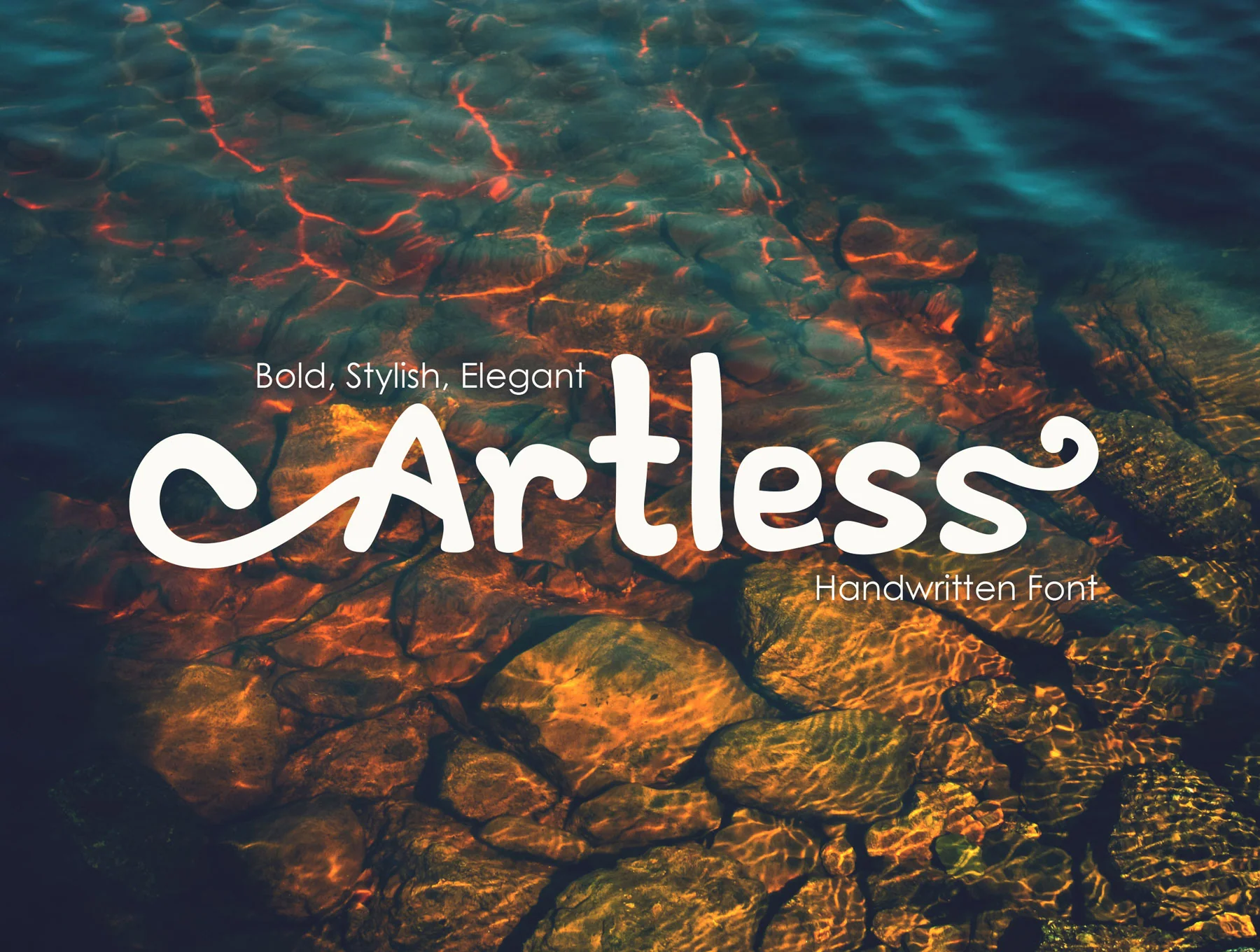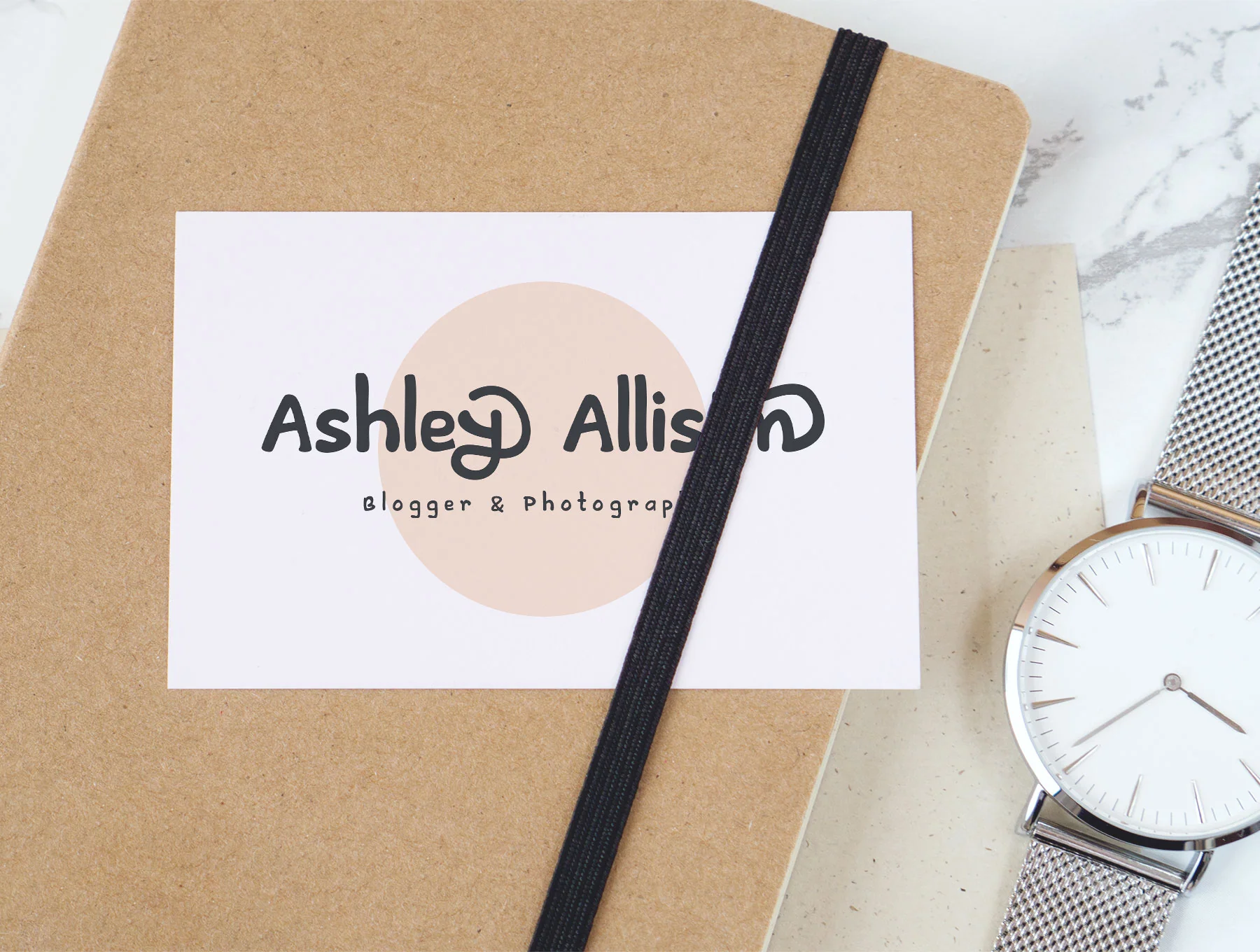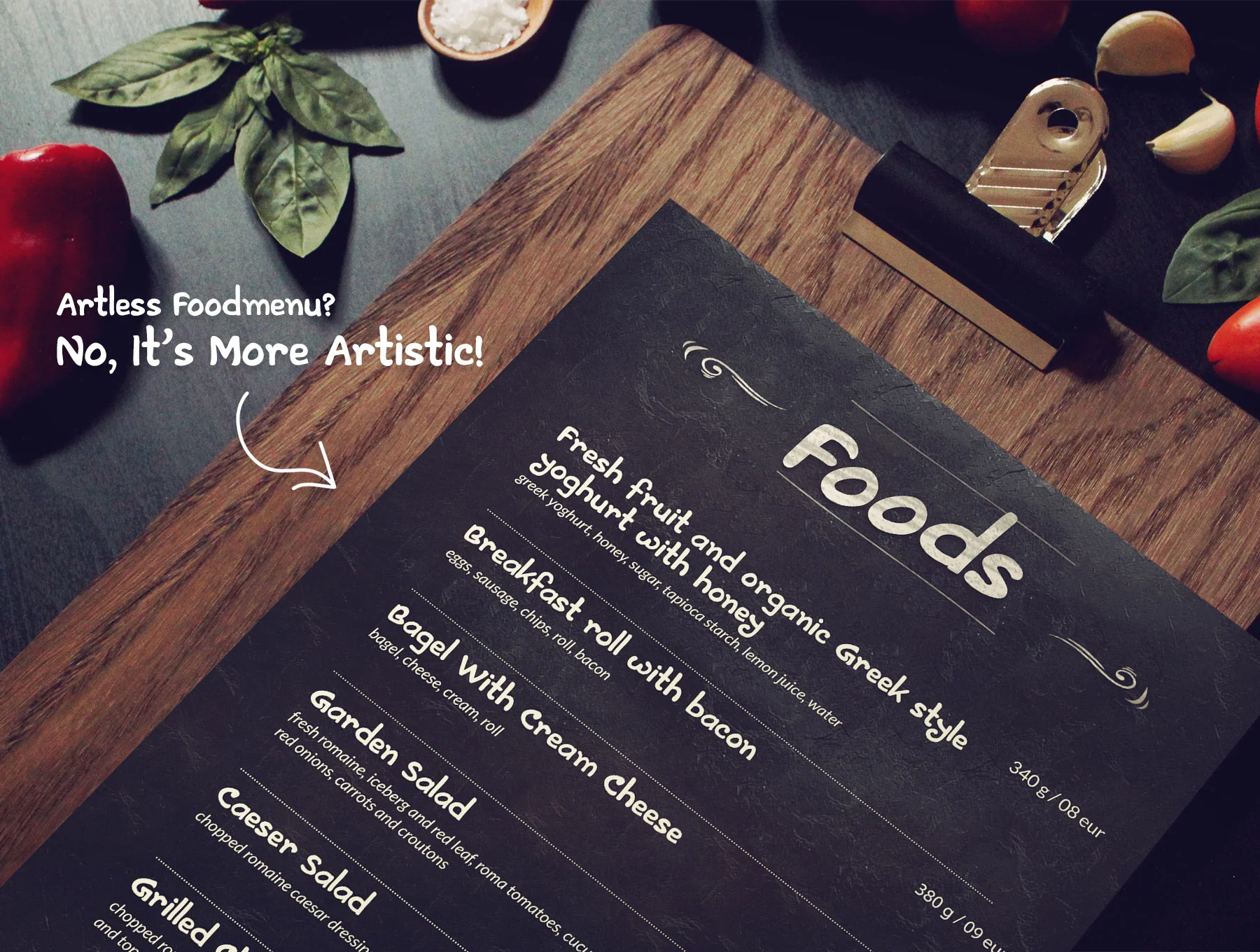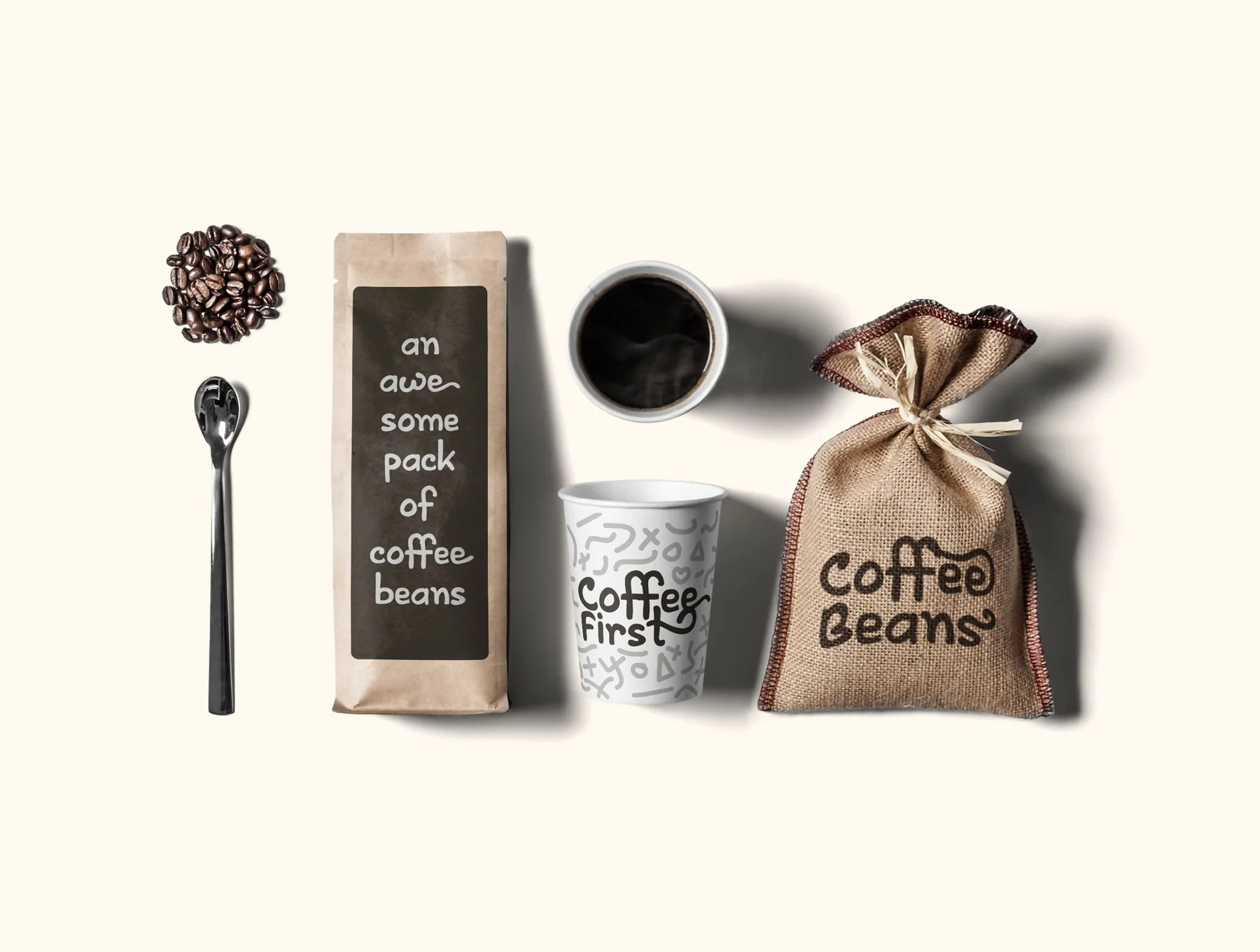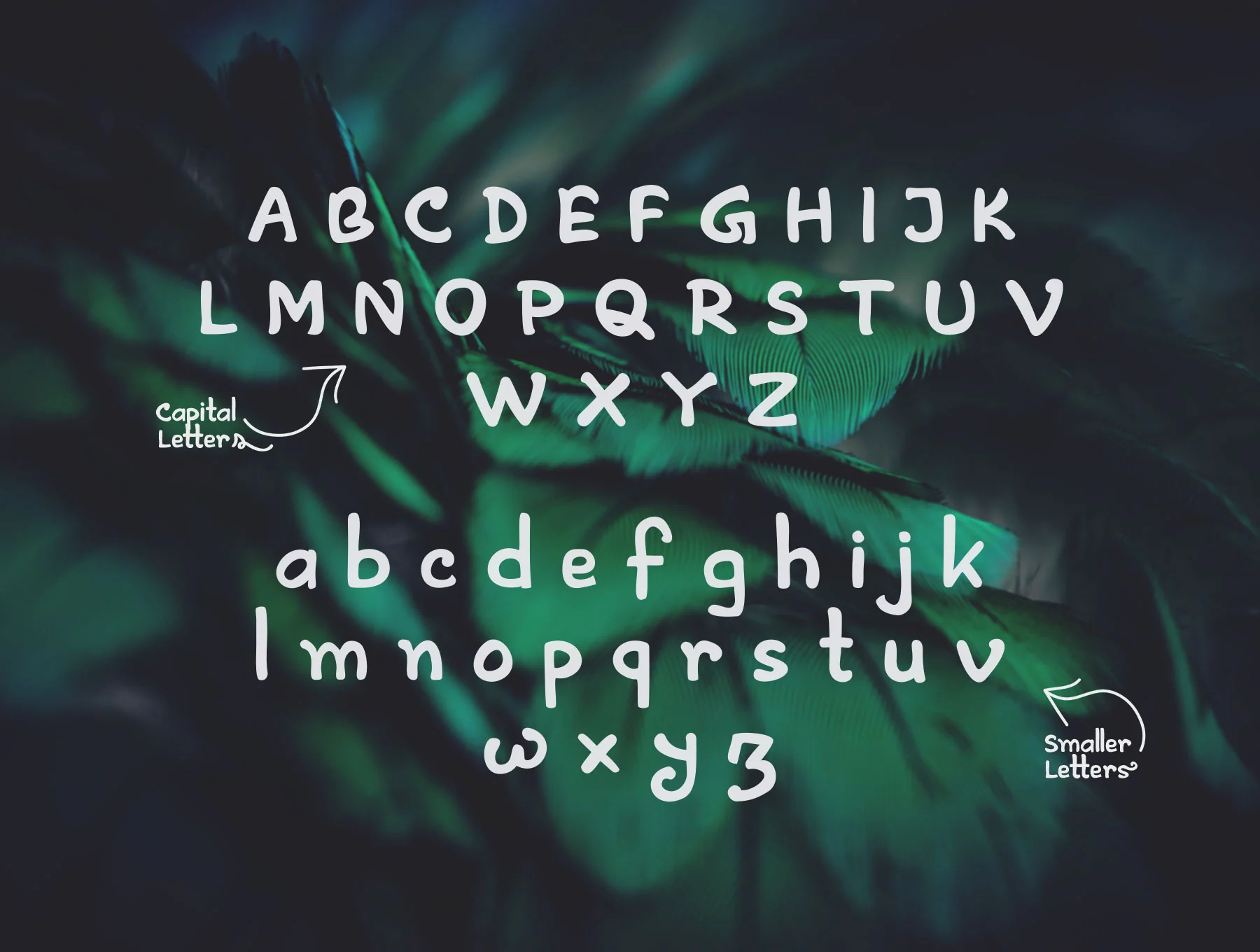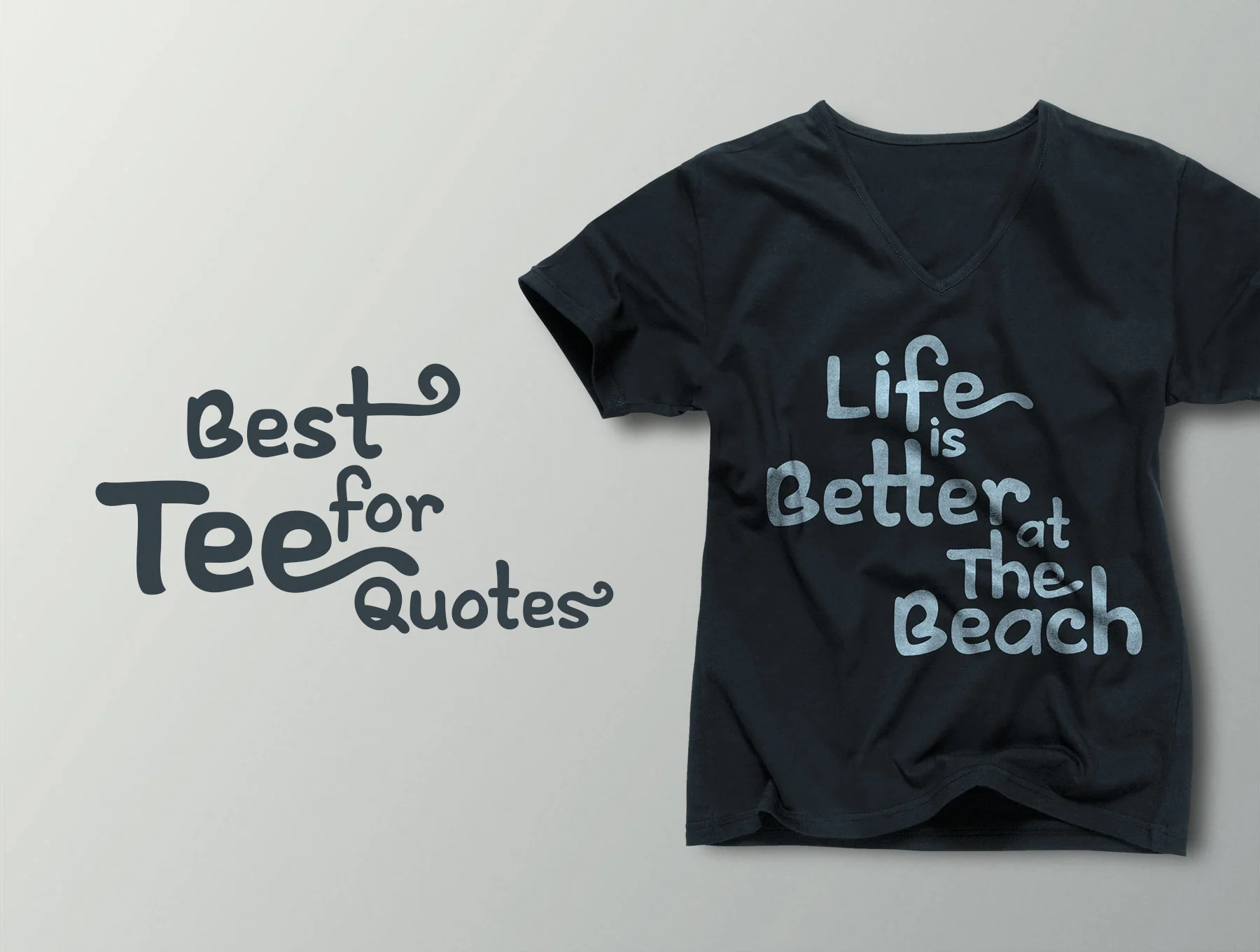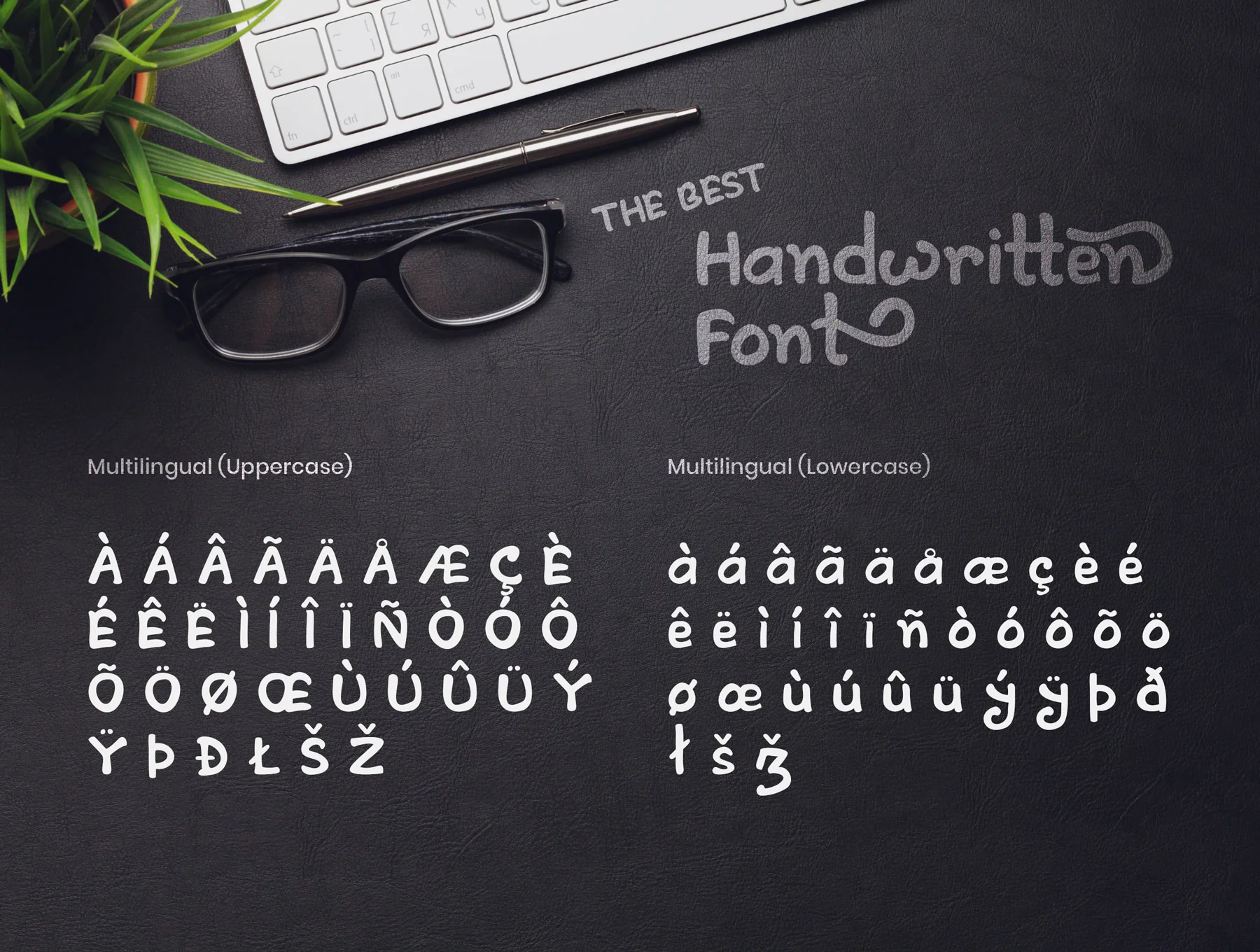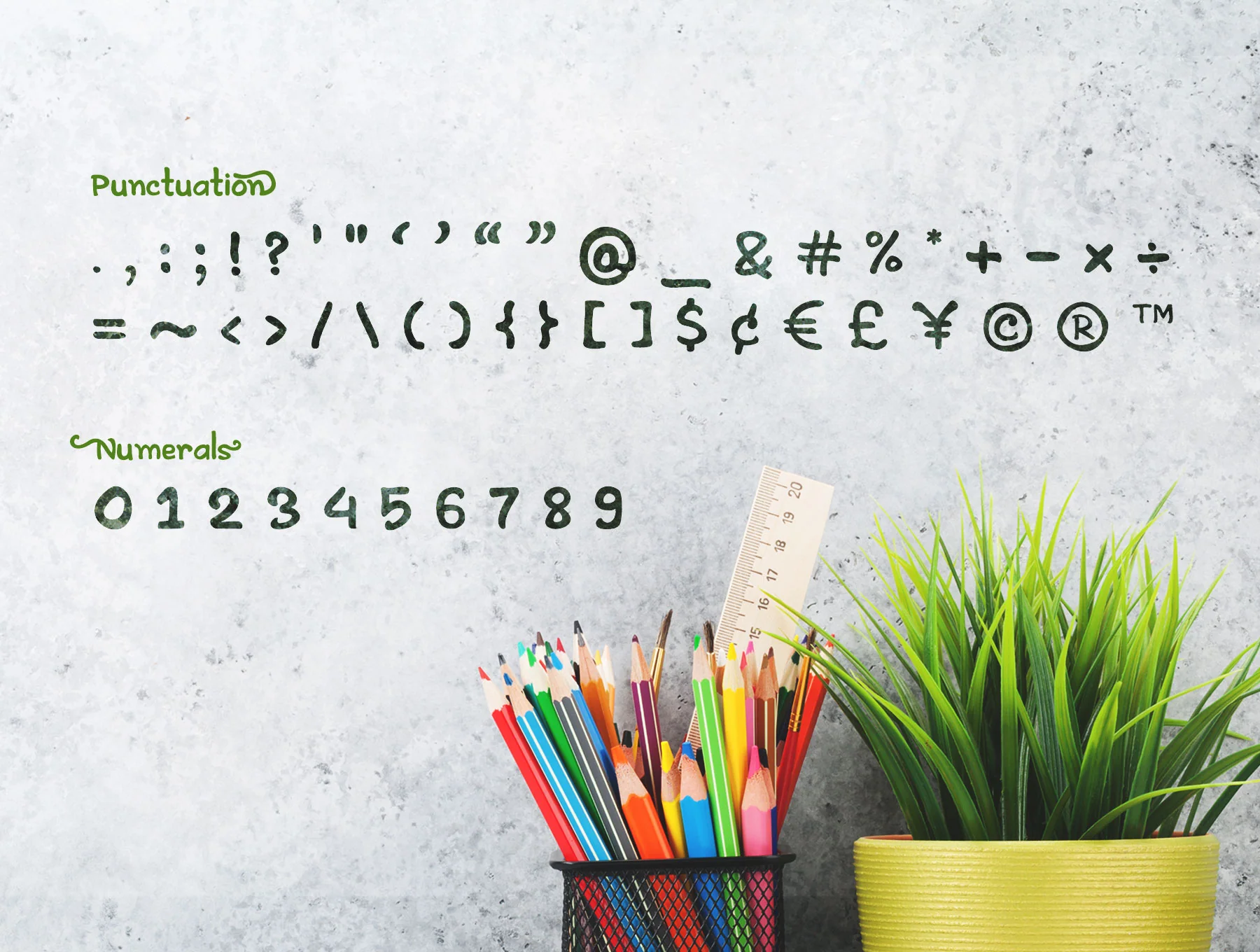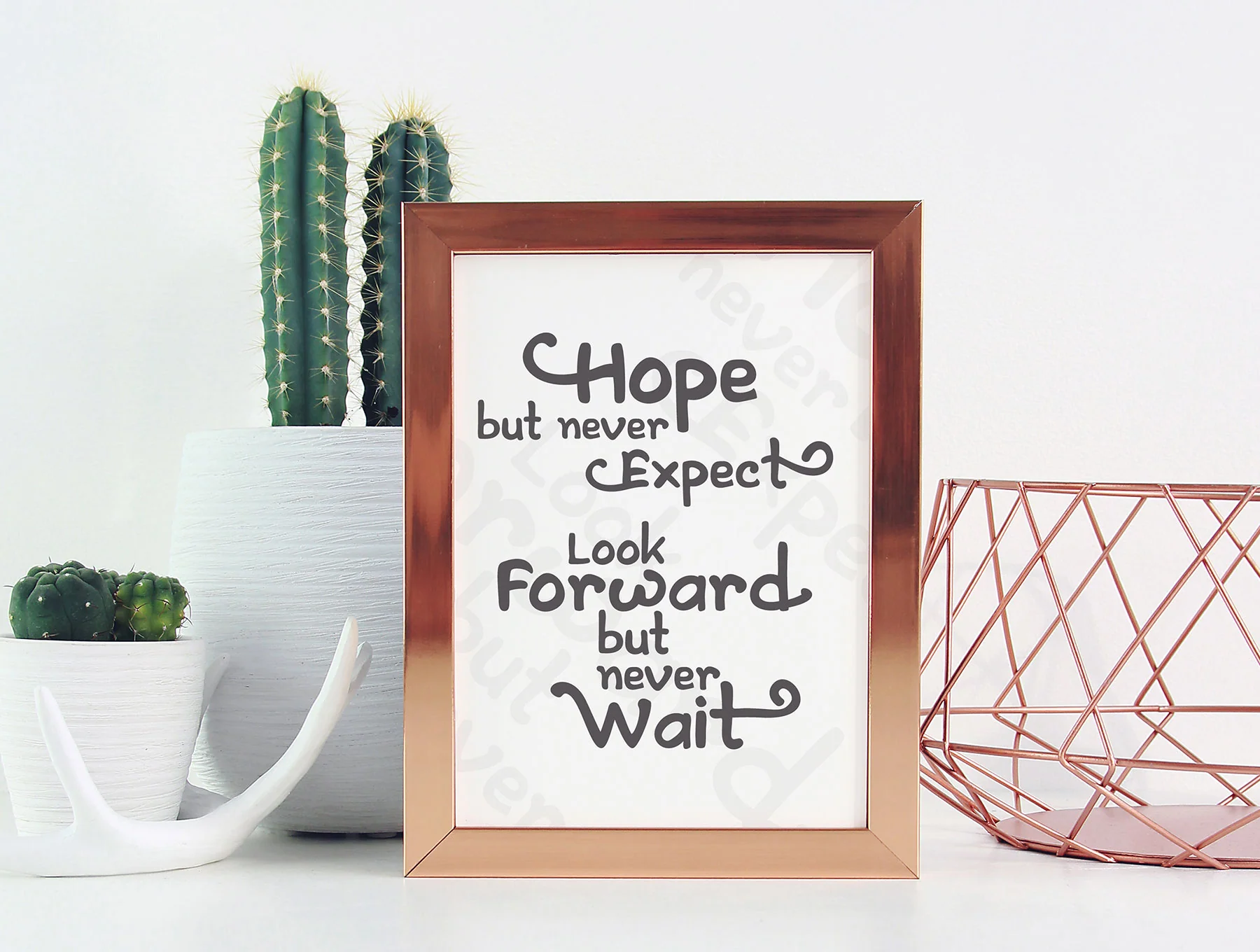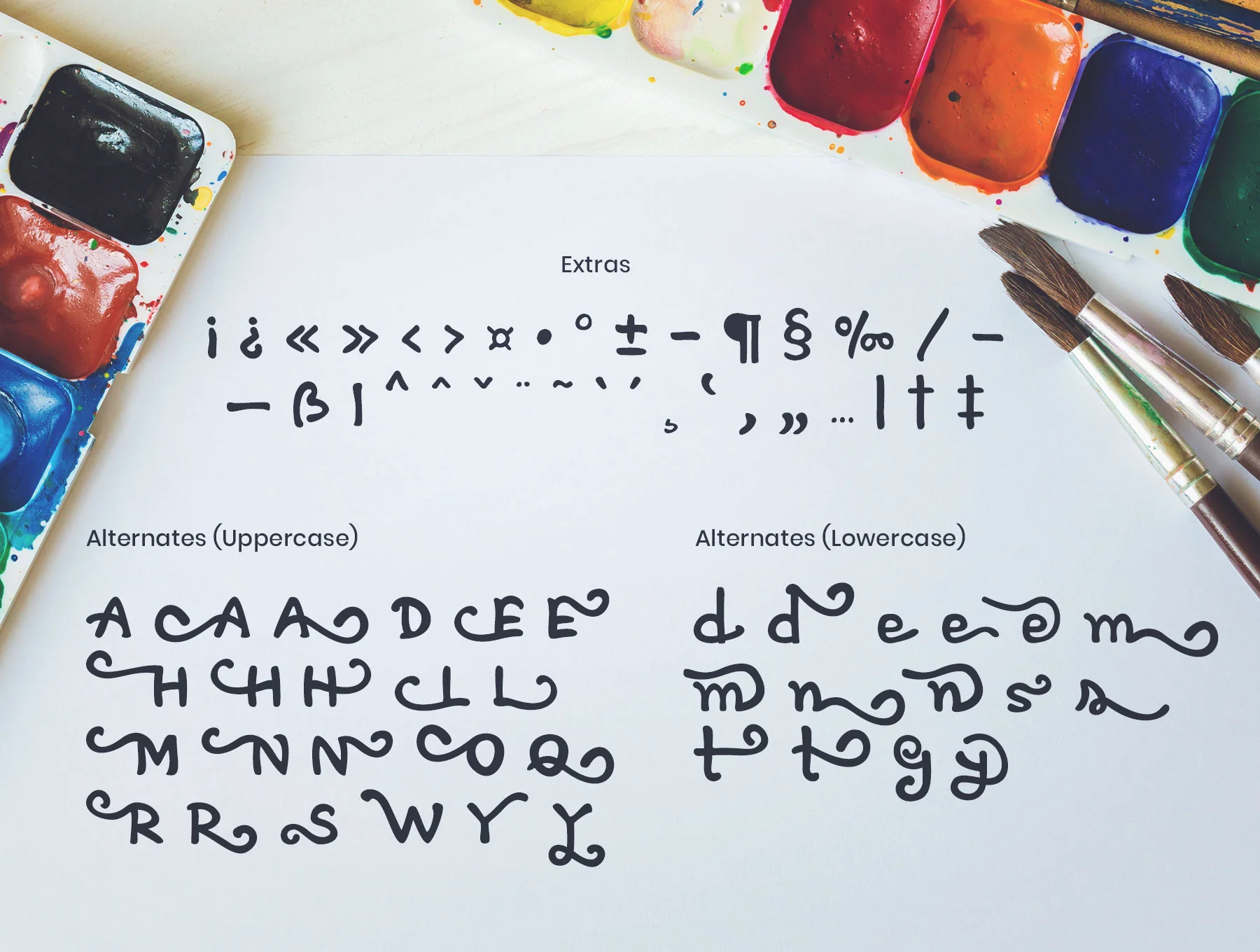
Artless - Handwritten Font
Add a fresh, playful handwritten font to your next creative project!
246 glyphs in total
A-z uppercase and lowercase standard letters
0-9 digits plus standard punctuation (PUA)
Multilingual characters and accent marks
A fresh handmade handwriting font that gives designs a warm, cheerful feel. Includes 246 glyphs, uppercase and lowercase letters, numbers, PUA punctuation, multilingual characters, alternates, plus OpenType and TrueType support. Comes in OTF, TTF, EOT, WOFF, and WOFF2, with a readme for alternates and an HTML glyph preview.